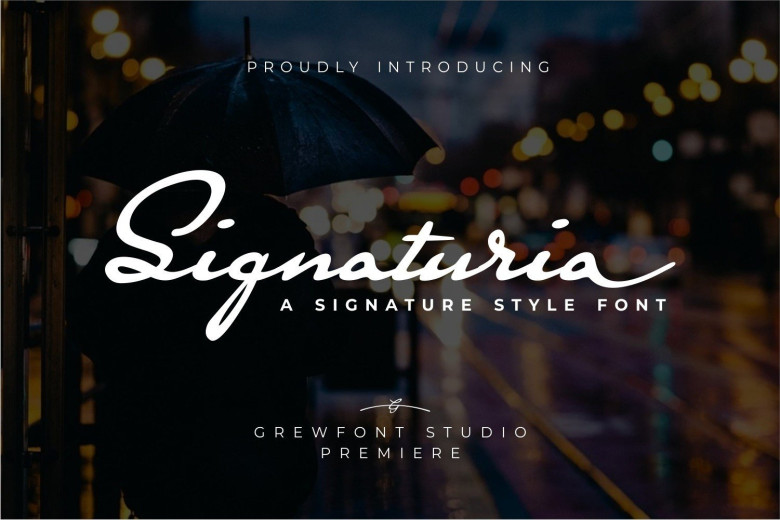
Signaturia Signatur Script Font
Introducing the Signaturia Signatur Script Font! This font was created to help you designing logotype or lettering style logo for your Brand or your clients, and you also can use it for designing all of the graphic stuff such as badge, sign, packaging, headline, title, T-shirt/apparel, Poster, etc.
Signaturia Font was designed for personal characters such as strong, confidence, dynamic, readable, Energic, dynamic, etc. This font is free for PERSONAL USE. Link to purchase full version and commercial license: HERE